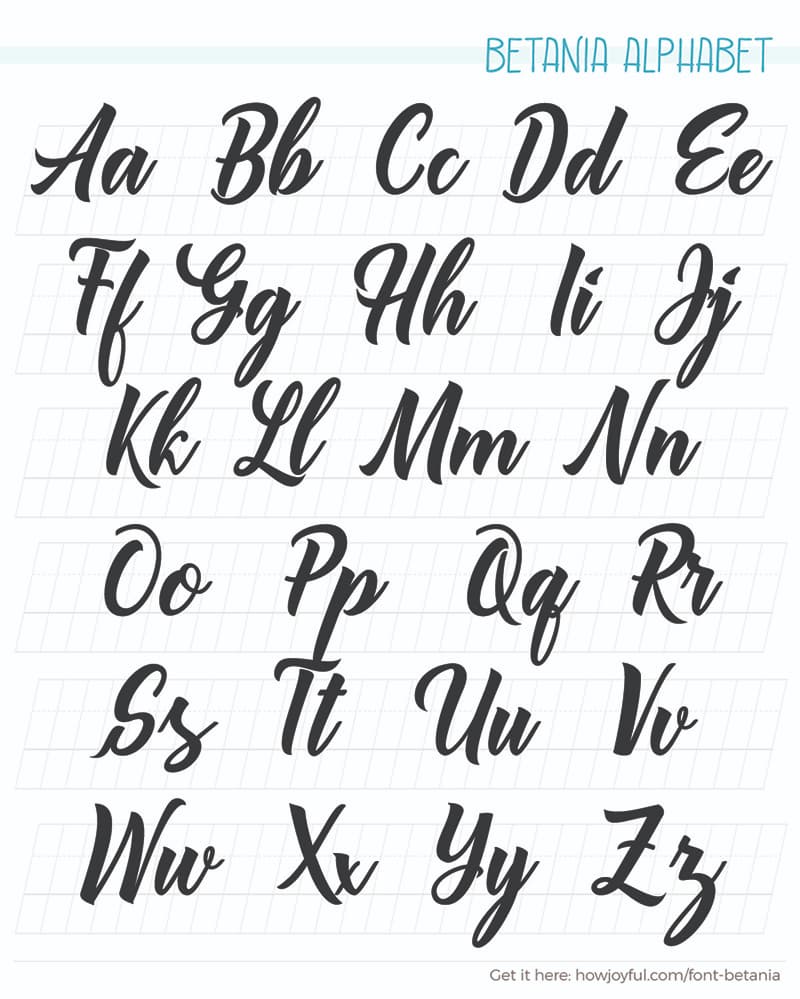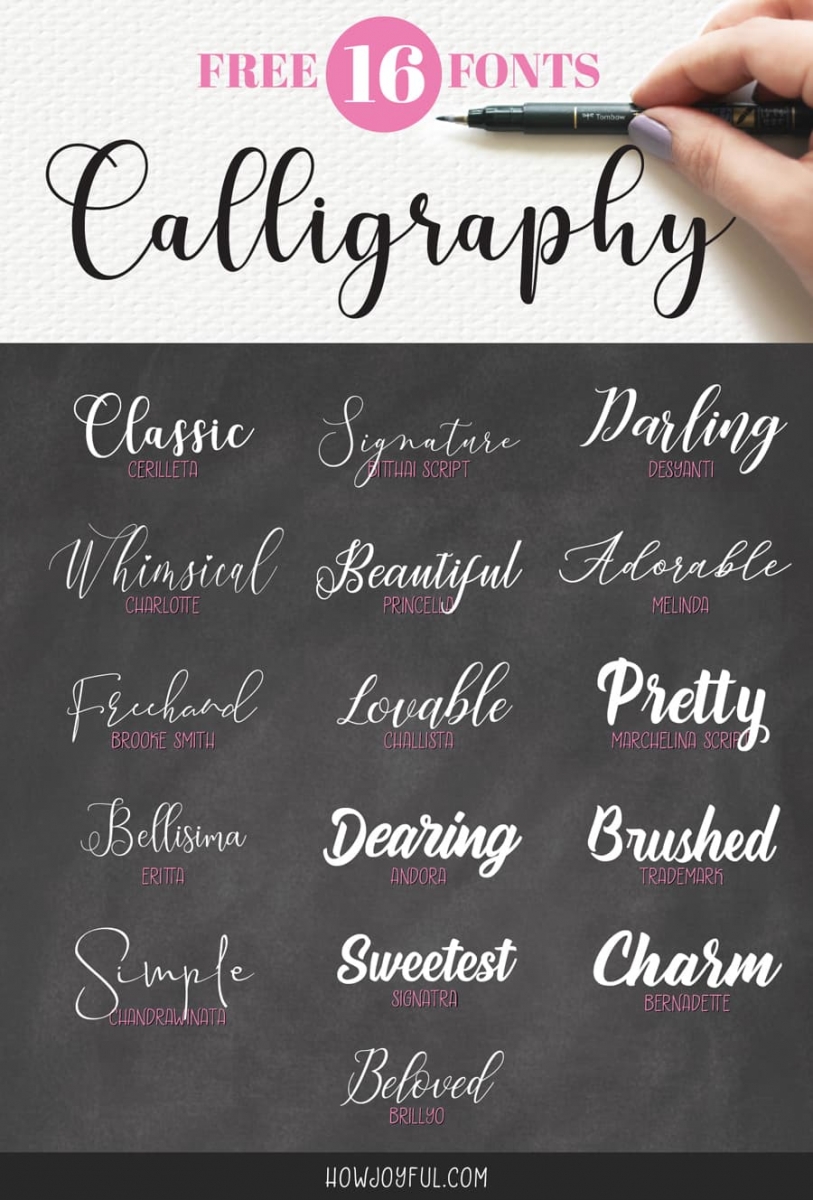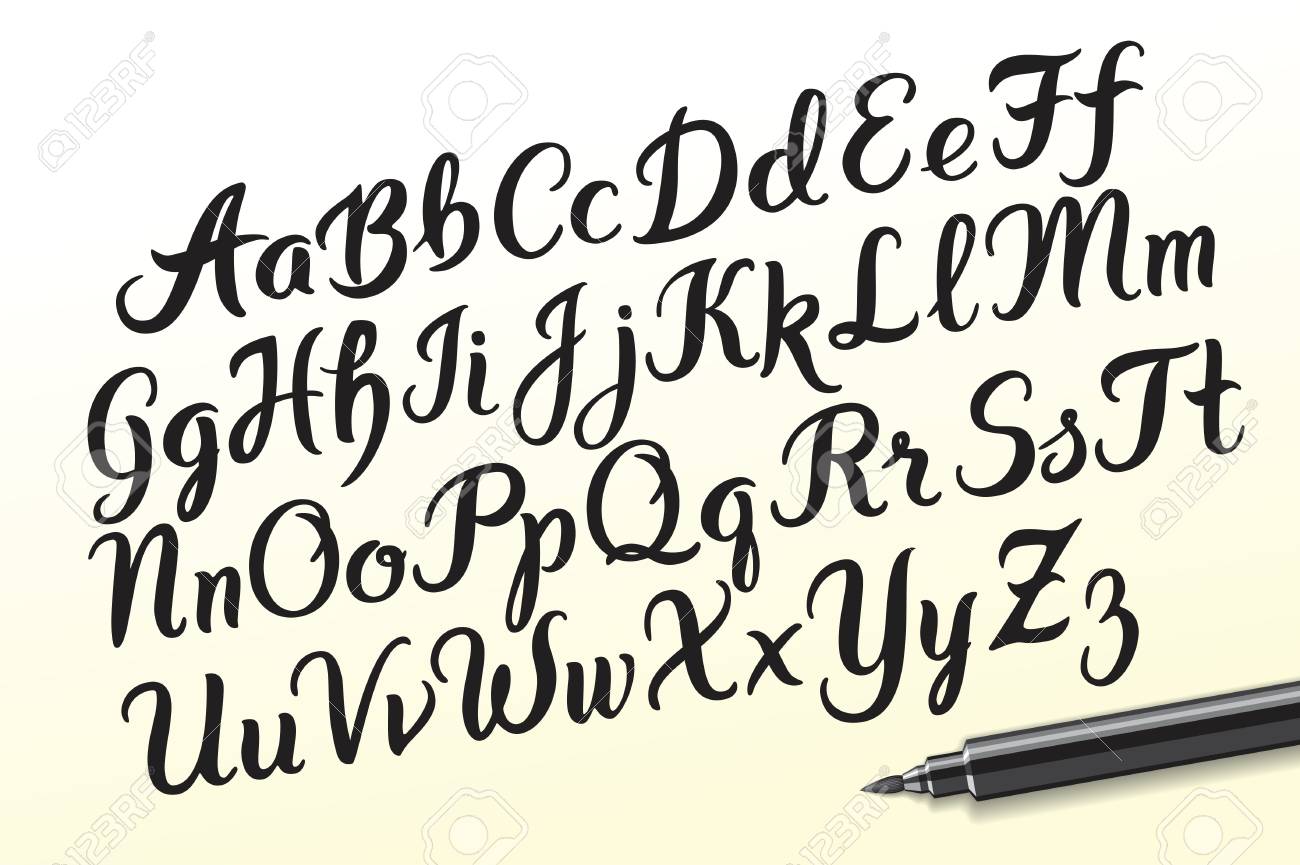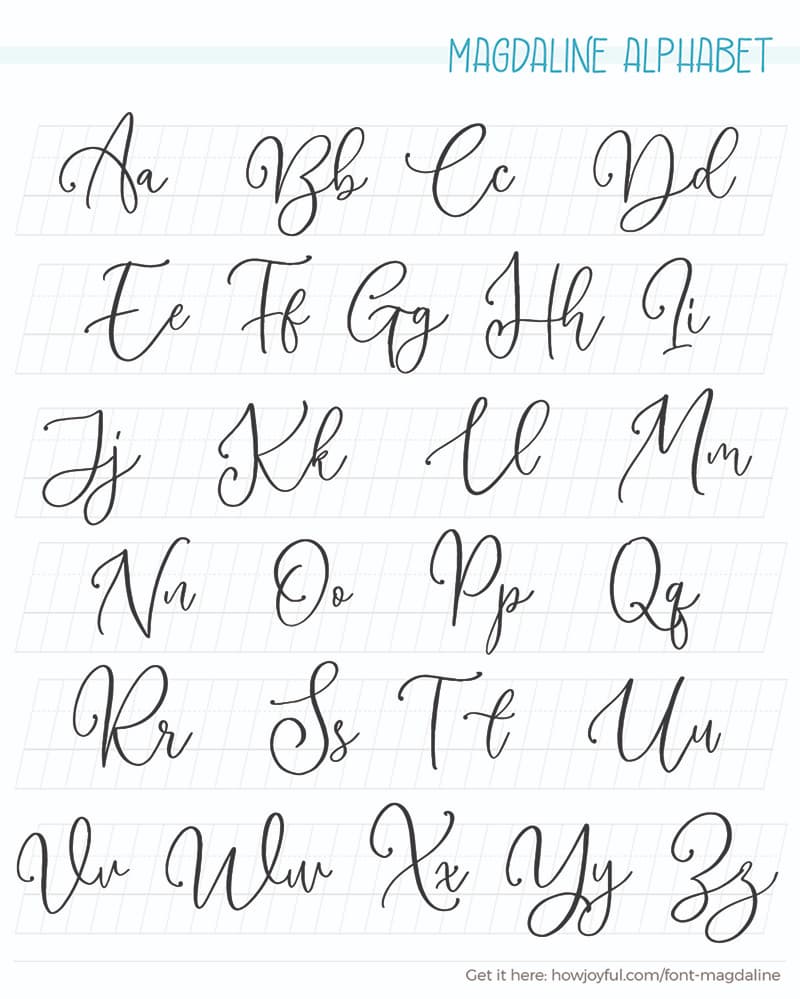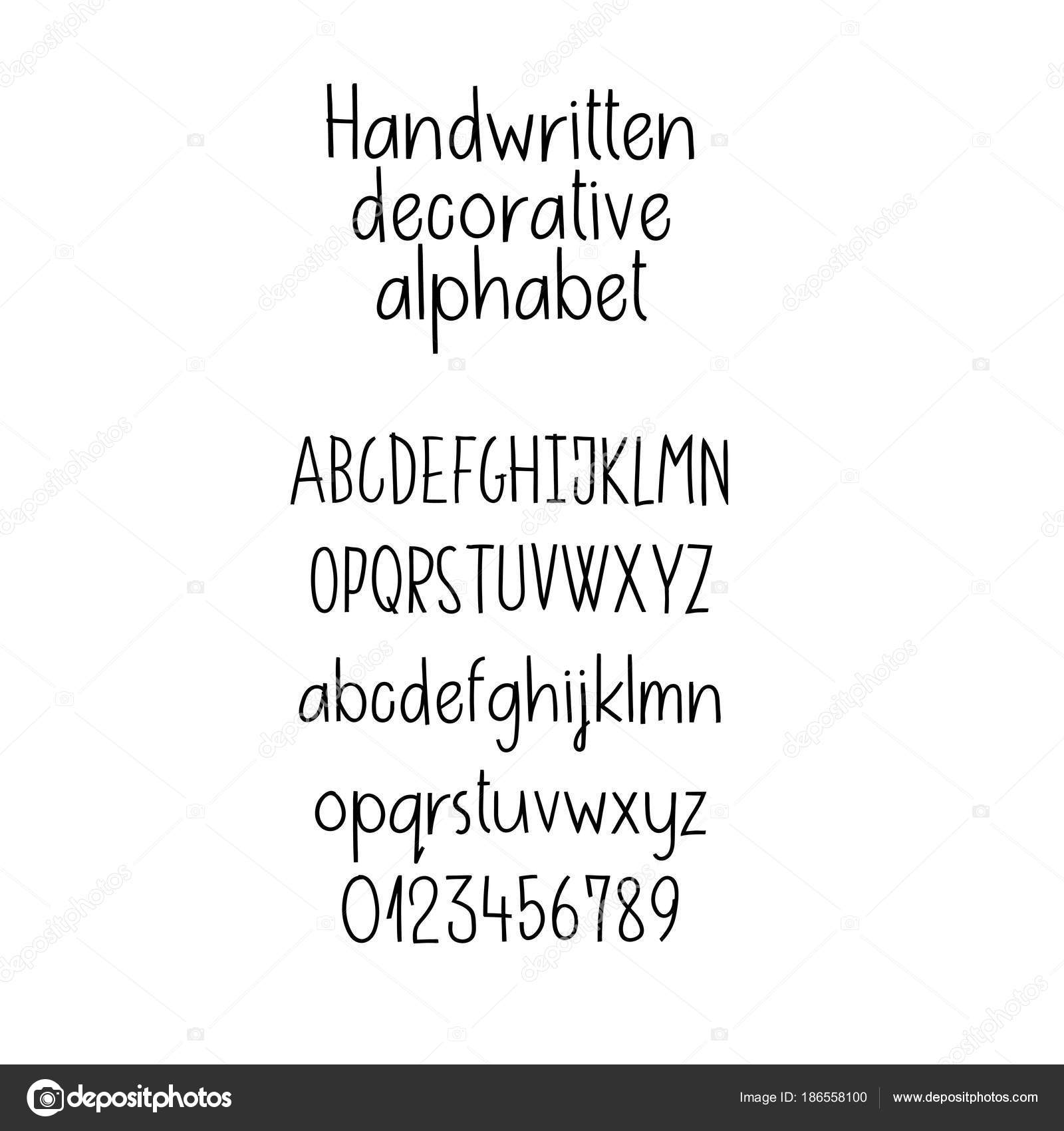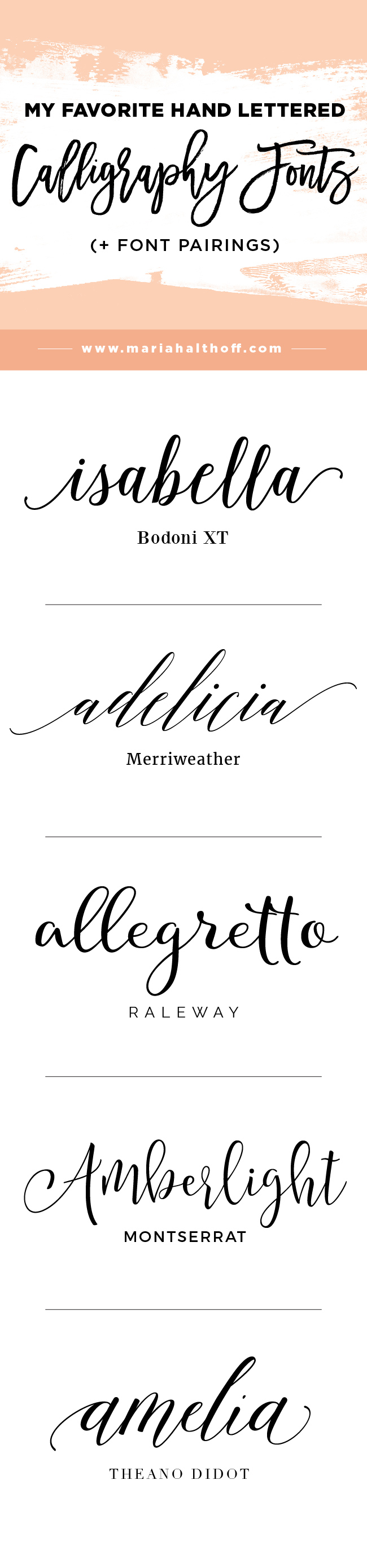
Jun 15 2019 - These examples of hand lettered alphabets are great inspiration for your own hand lettering. Looking for Hand Lettering fonts.
Handwriting hand lettering fonts alphabet. Non-connected script font based on freehand lettering with felt-tip pen. 4853 Free Handwritten Fonts 1001 Fonts Font Categories. Jan 27 2019 - Hand drawn alphabet set.
The three eponymous styles of the family Ernie Frank and Tiffany each have a unique flavor with its own rhythm and character. Hand-drawn fonts carry a certain natural flow because of how it is made to mimic how a drawing tool interacts with a surface to draw its letters. In fact they have a wide range of handwriting font styles from serif to script to calligraphy.
See more ideas about hand lettering fonts. Imagine using a handwriting font instead of web-safe fonts like Arial Times New Roman for your blog titles post titles etc you will surely catch the eyes of your readers. Hand lettering fonts start with a pen and might make use of light upstrokes and heavy downstrokes similar to calligraphy and are eventually digitized to make available on the screen.
Hand Written is a trendy and unique font with an authentic style. Hand Written will add an organic vibe to any design idea. Writing fonts include both printing and cursive styles and is less artistic than formal calligraphy.
It was designed by numnimtype and its a great choice for creative people who need such a font. Our handwritten fonts are an opportunity to address personal and loving issues. Download Donate to author.
It was released on May 22 2021 and the file size is 570 MB. Pencil texture handwriting font. A great handwritten font based on a young moms handwriting.
Apr 25 2019 - Explore Kathy Wattss board Handwriting alphabet on Pinterest. Beginner Hand Lettering Fonts Alfabeto Completo A Calligraphy Guide for the Beginners All About Fonts and Alphabets 10 Super Easy Hand Lettering Techniques with an Artful Spin Post Kiley in Kentucky Lettering alphabet Lettering styles Top 10 Free Lettering Fonts You Need to Own. Handwriting fonts are written with a pen pencil or marker.
Download Donate to author. Amatic Sc is a dainty handwritten style font featuring slight tilts and curves. Latin Latin Extended Cyrillic.
1 weight Regular Download. Craft a personalized note with one of these amazing handwritten fonts below. Not a lot of people know that Google Docs have a lot of fonts that look like handwriting.
Hasty Tasty created by David Kerkhoff is a typical font in handwriting. These fonts were originally created in 2012 so Acrobat users could sign documents electronically but they were capable of so much more and were happy. These handwritten fonts are drawn using any kind of writing instrument like pen pencil felt marker brush etc.